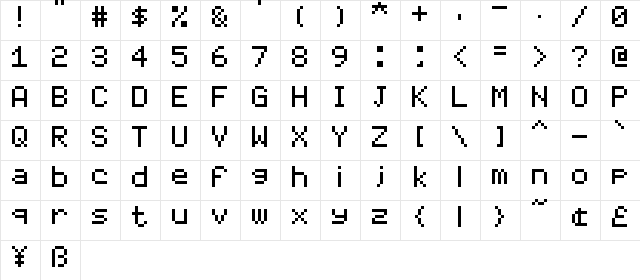
07x5 Regular
| Designer | jffry101 |
Design Context for 07x5 Typeface
07x5 is a composed and adaptable typeface that performs quietly and consistently across a wide range of design contexts.